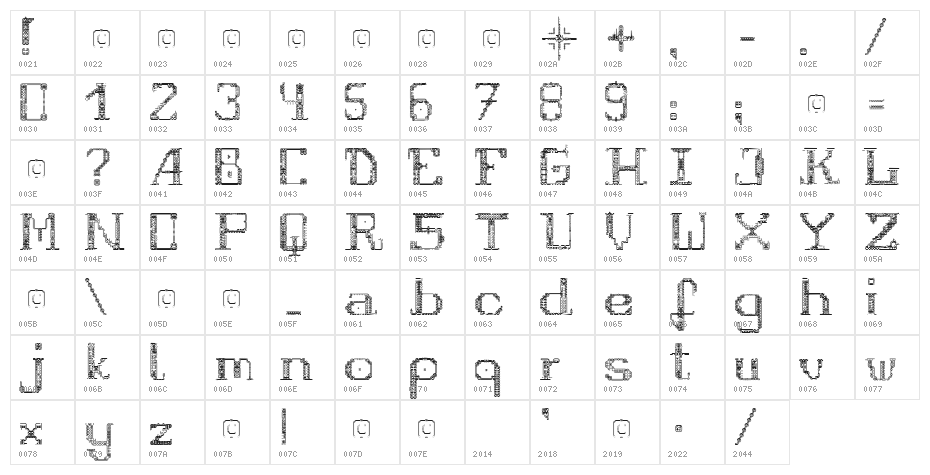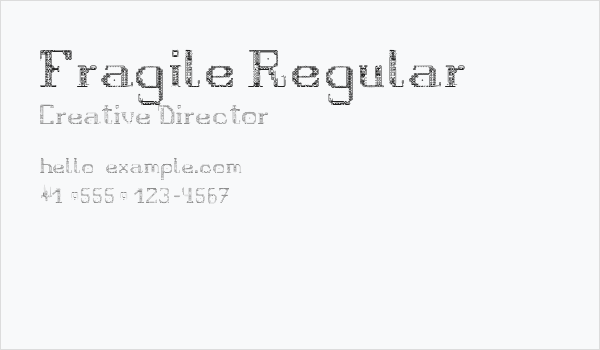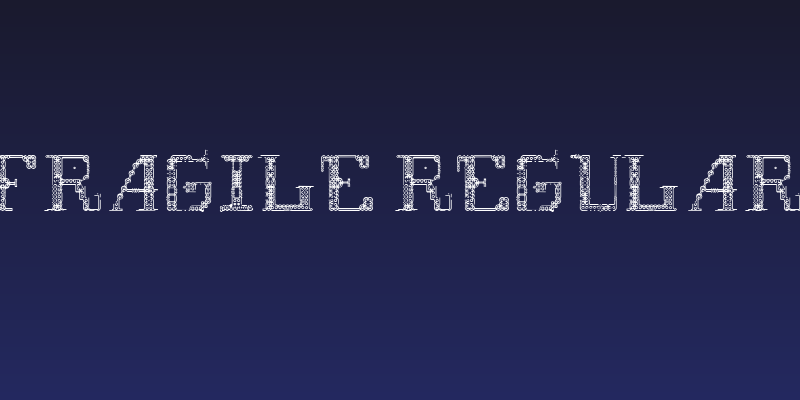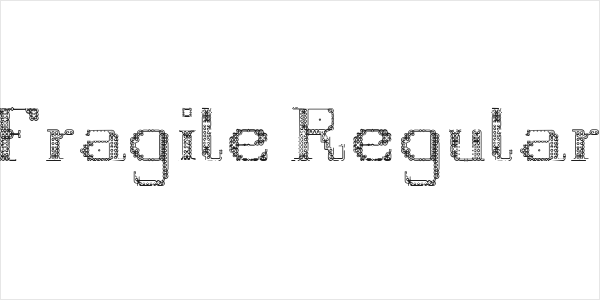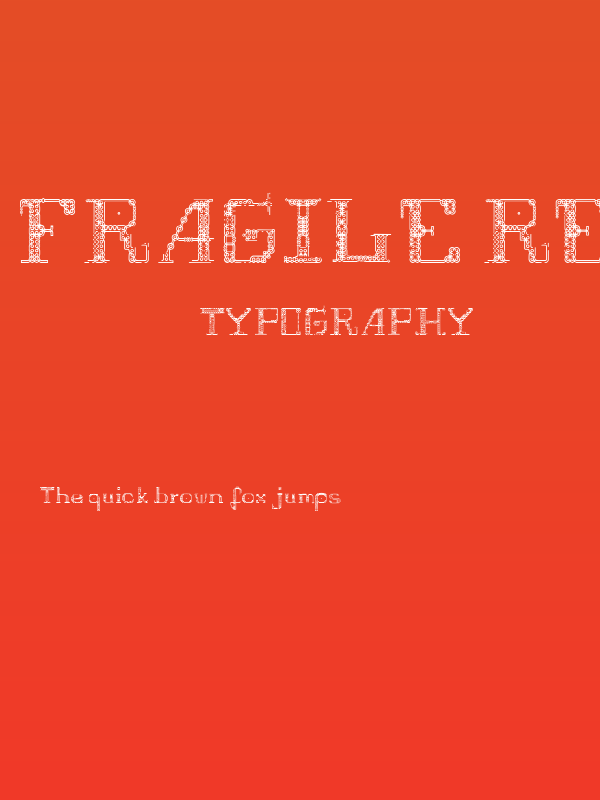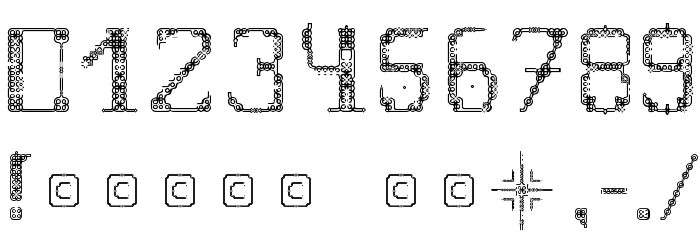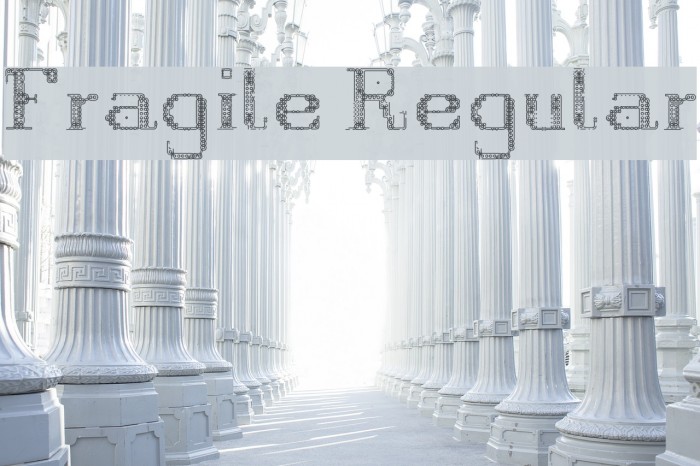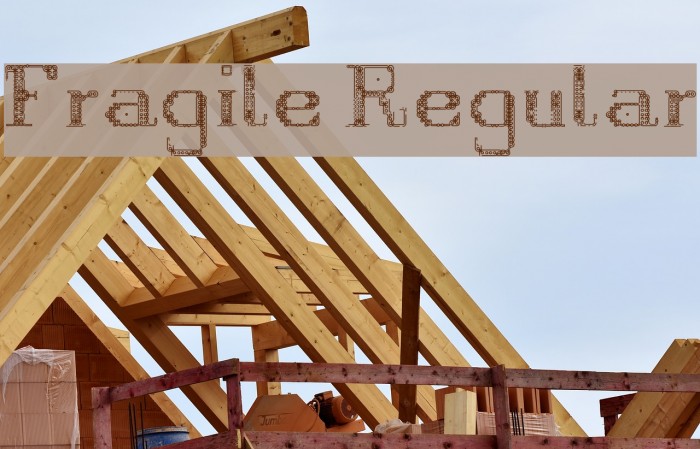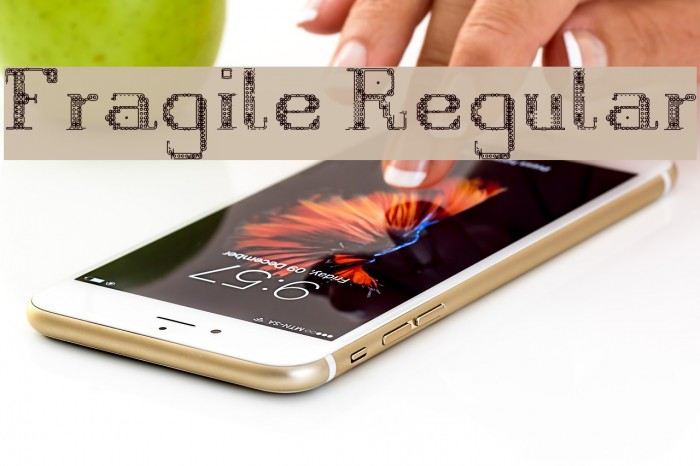
Fragile Regular Font
Fragile Regular Description
This font features a unique and intricate design with a textured, almost pixelated appearance. Each character is composed of a series of small, interconnected shapes that create a visually striking effect. The uppercase and lowercase letters maintain a consistent style, with a geometric and somewhat mechanical look. Numbers and special characters follow the same design principles, ensuring uniformity across the font. The overall aesthetic is both modern and experimental, making it stand out in any design project.
| Overall Style | Modern, Experimental |
| Proposed Projects | Ideal for digital art projects, video game design, tech-themed posters, and experimental graphic design. |